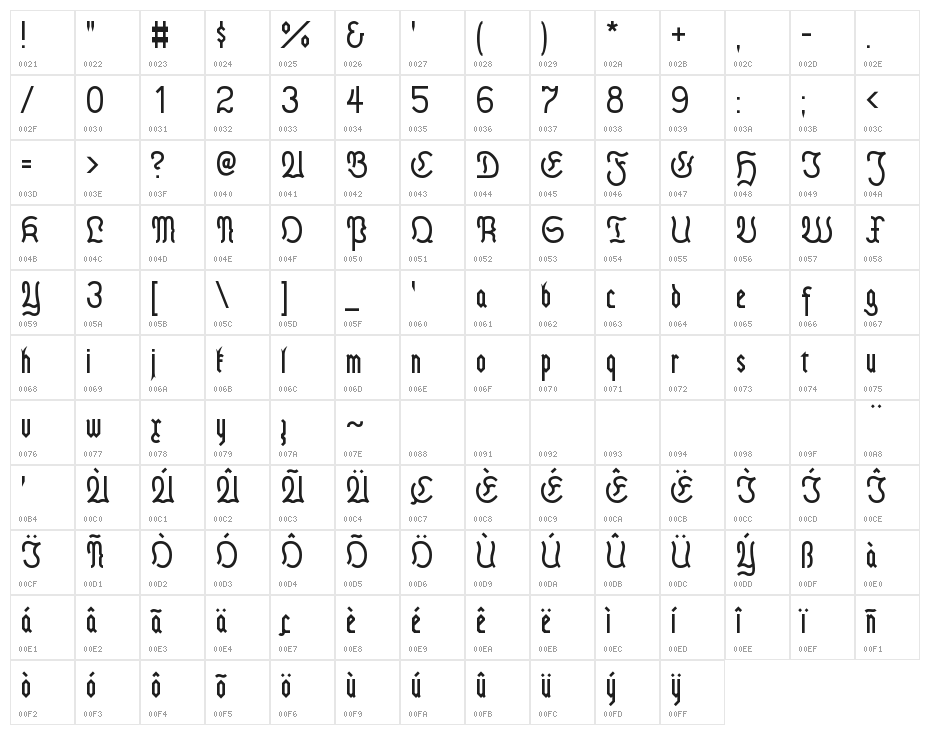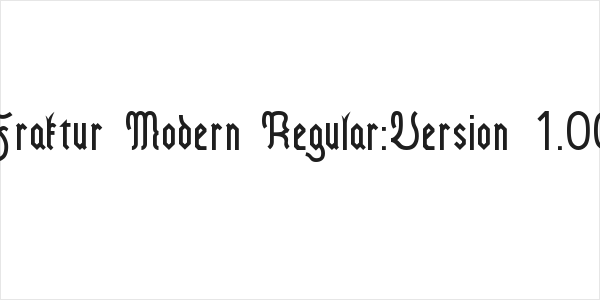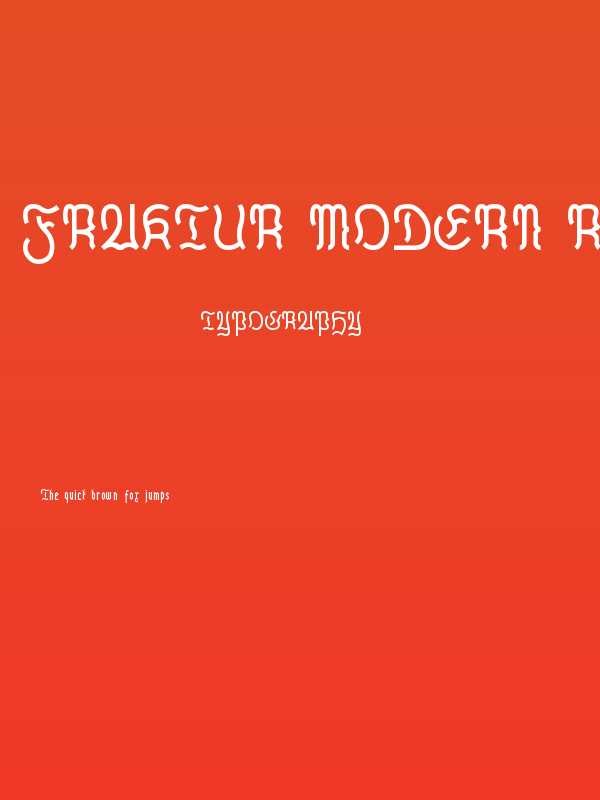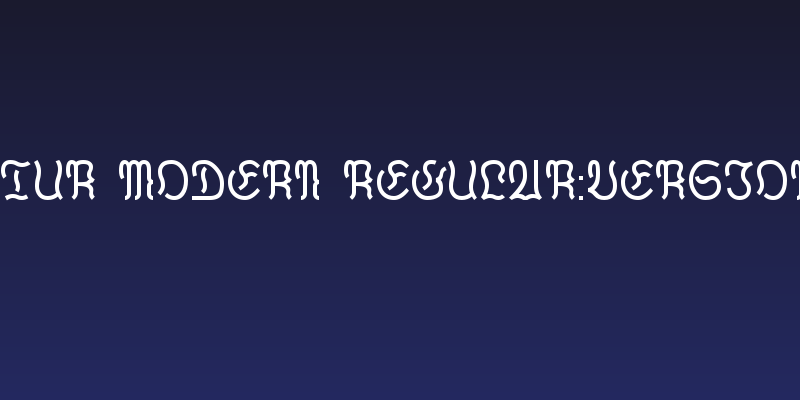
Fraktur Modern Regular:Version 1.00 Font
Fraktur Modern Regular:Version 1.00 Description
This font features a modern take on the traditional Fraktur style, characterized by its sharp, angular forms and intricate detailing. The uppercase letters exhibit a bold presence with ornate flourishes, while the lowercase letters maintain a consistent style with slightly less embellishment. The numerals are distinct and easily readable, incorporating the same angular design elements. Special characters are designed to complement the overall aesthetic, making them suitable for decorative purposes. The font's unique style is both historical and contemporary, offering versatility in various design contexts.
| Use Case | Headlines, Logos, Decorative text |
| Proposed Projects | Ideal for projects requiring a historical or gothic touch, such as book covers, posters, or branding for vintage-themed products. |